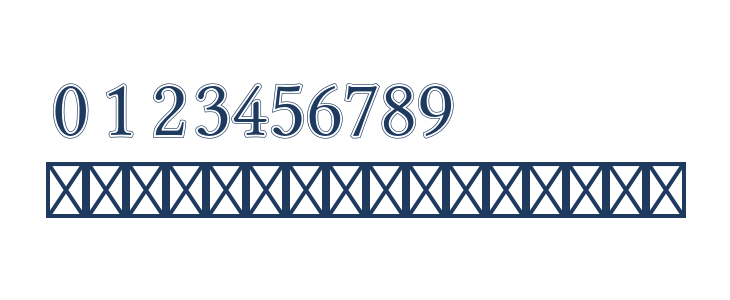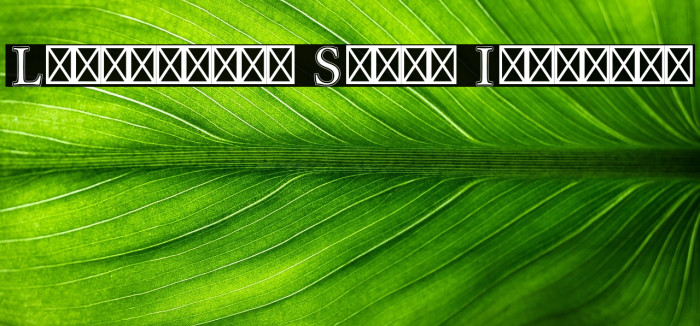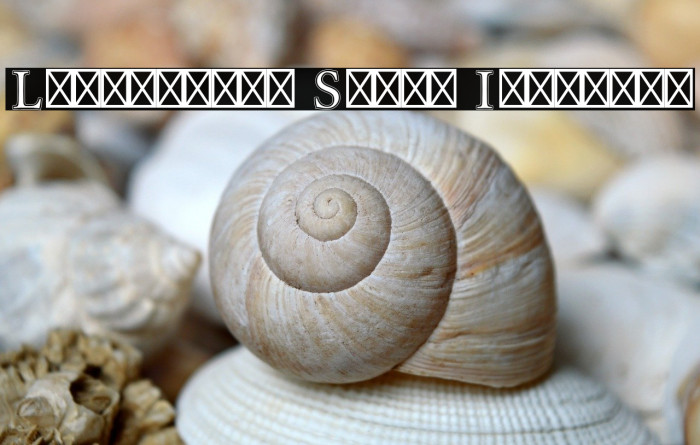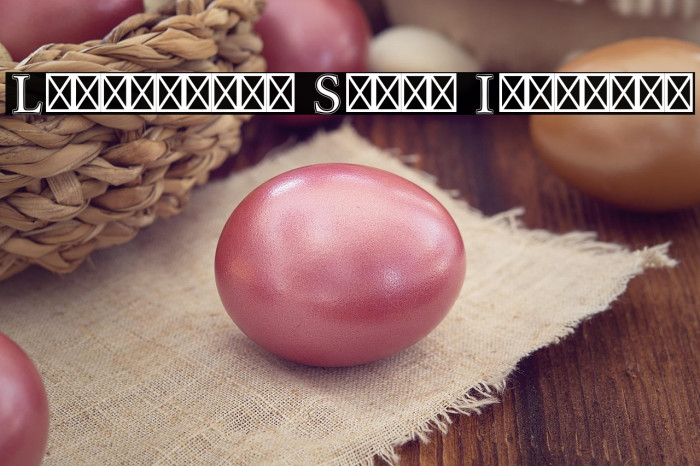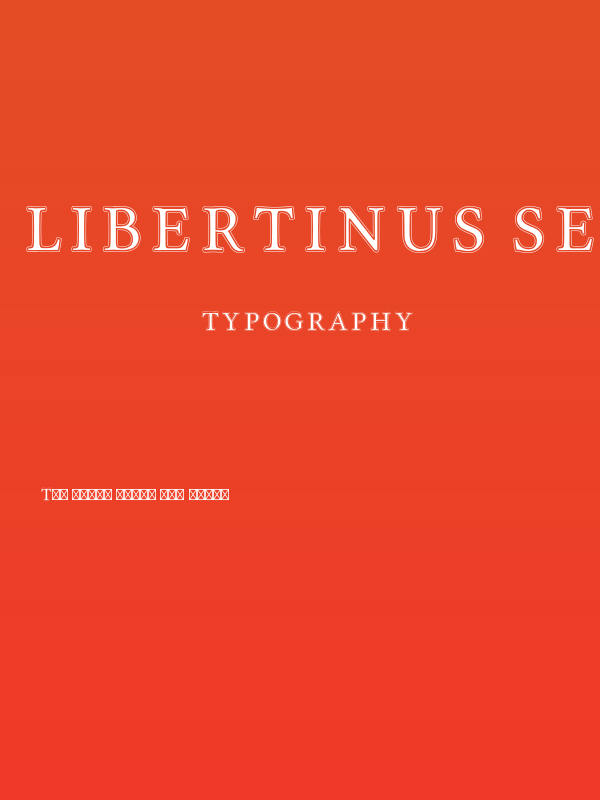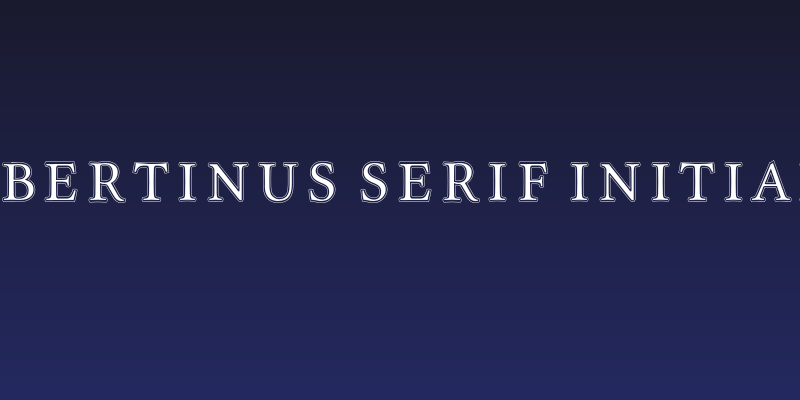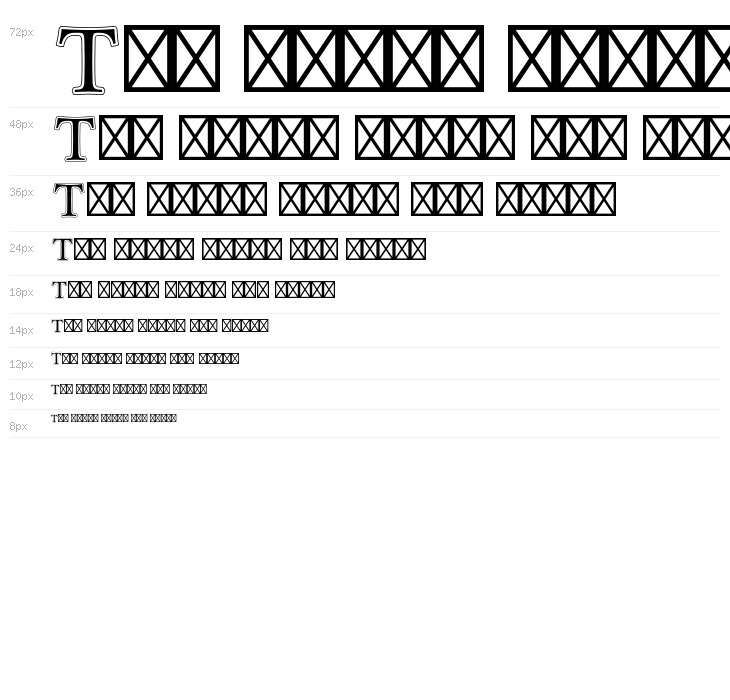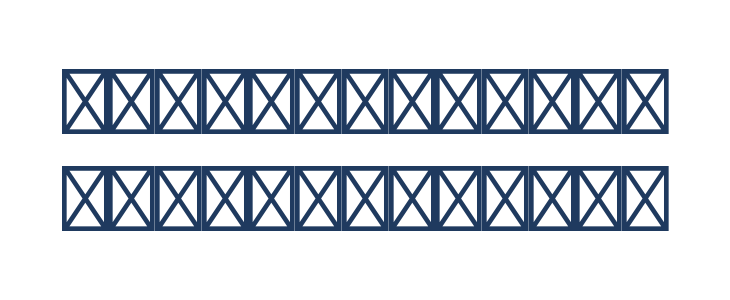
Libertinus Serif Initials Font
Libertinus Serif Initials Description
This font features a classic serif style with a refined and elegant appearance. The uppercase letters are prominently displayed with distinct serifs that add a touch of sophistication. The numerals are equally well-crafted, maintaining the traditional serif characteristics. The overall design exudes a sense of formality and timelessness, making it suitable for projects that require a touch of class and elegance. The font's structure is well-balanced, with consistent stroke widths and a harmonious flow between characters.
| Proposed Projects | Ideal for formal invitations, book covers, certificates, and branding that requires a classic touch. |